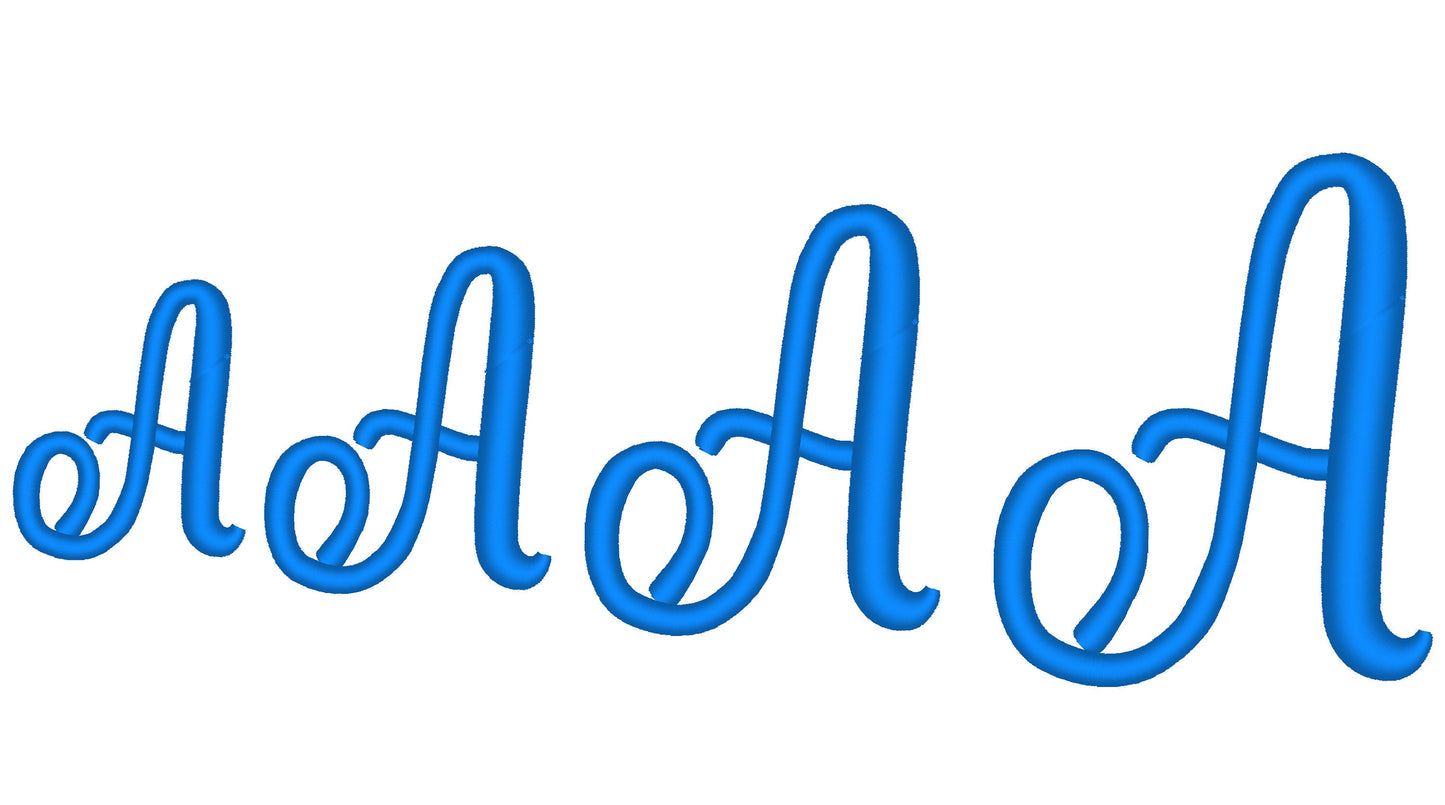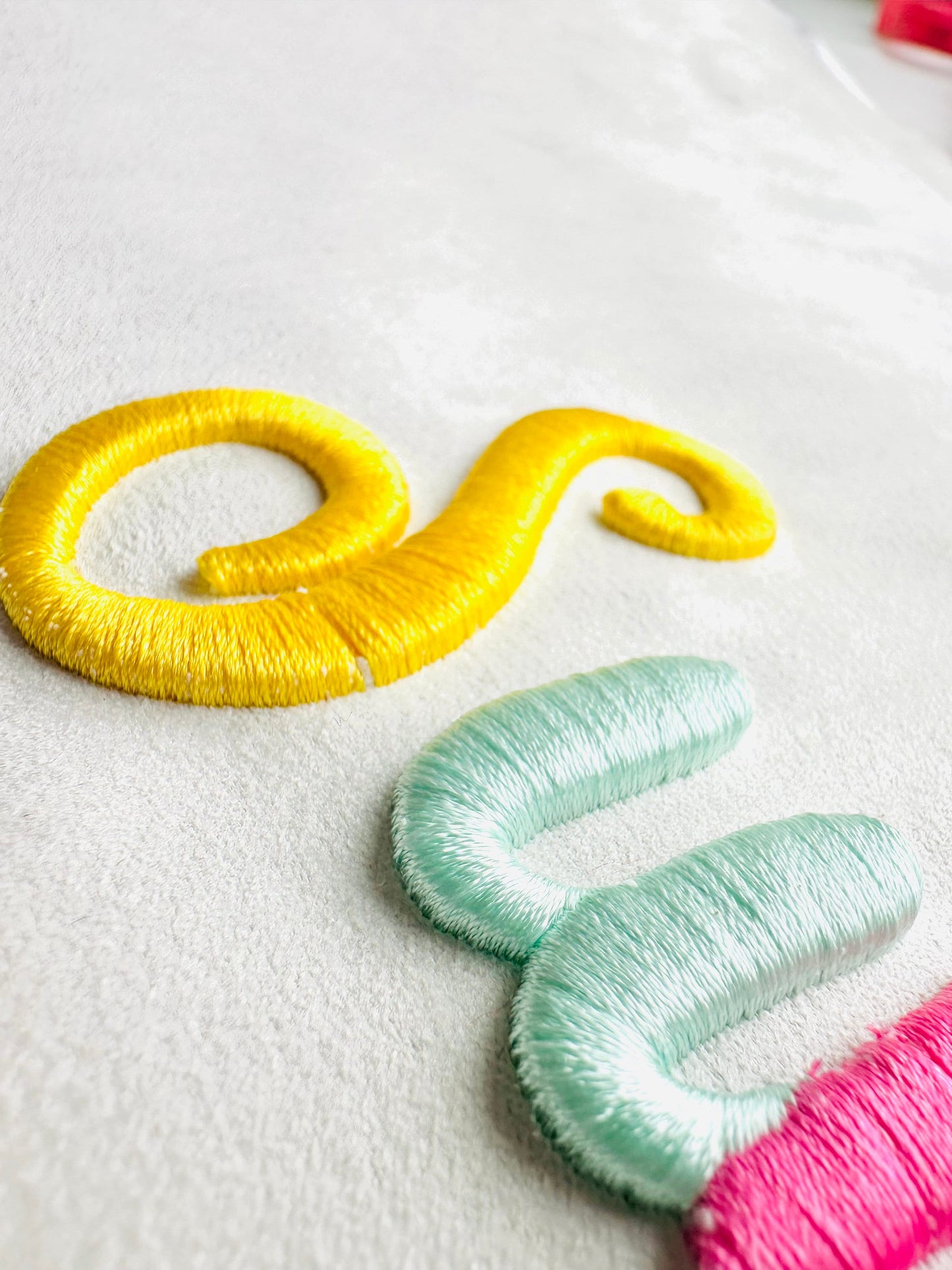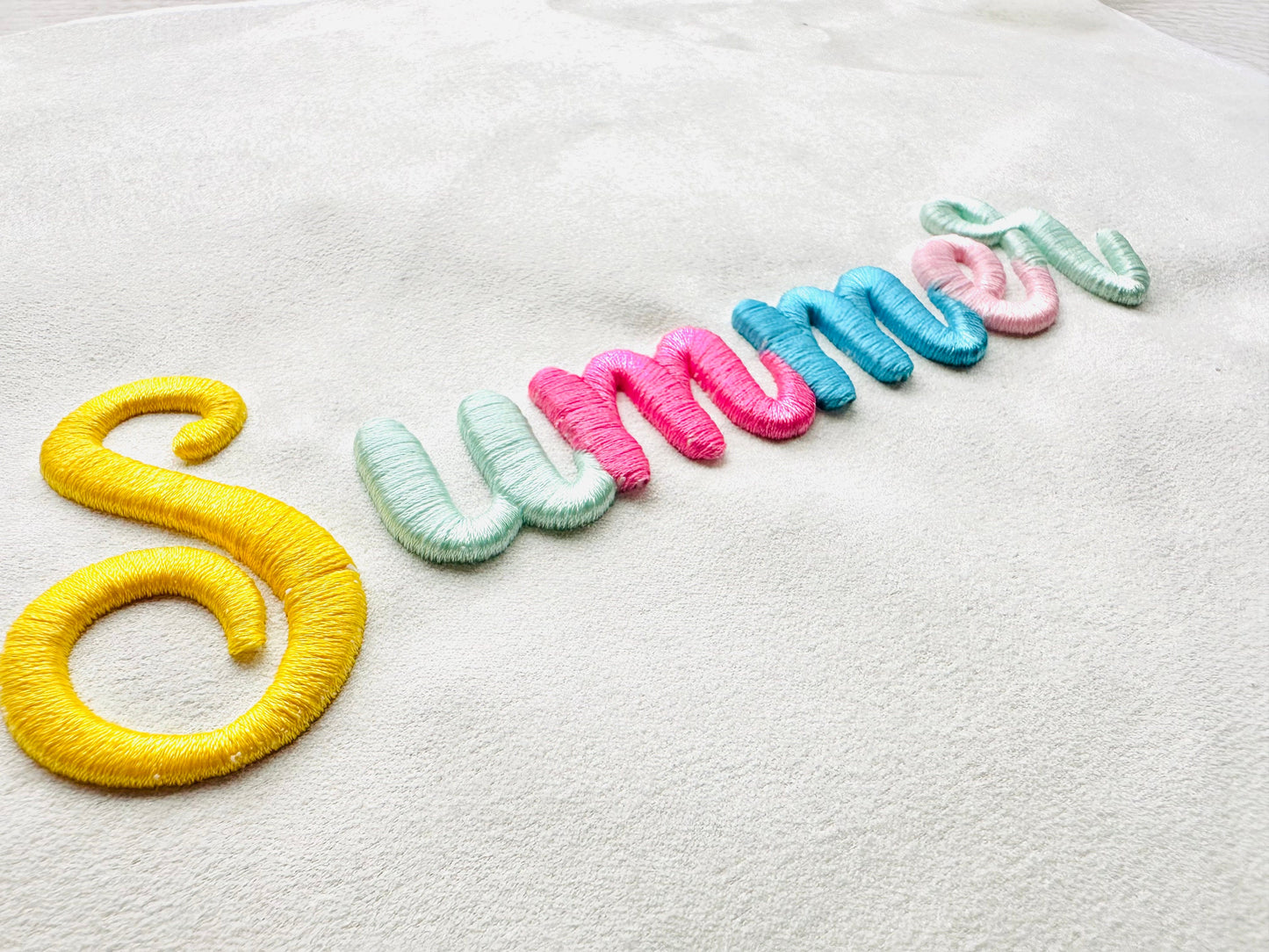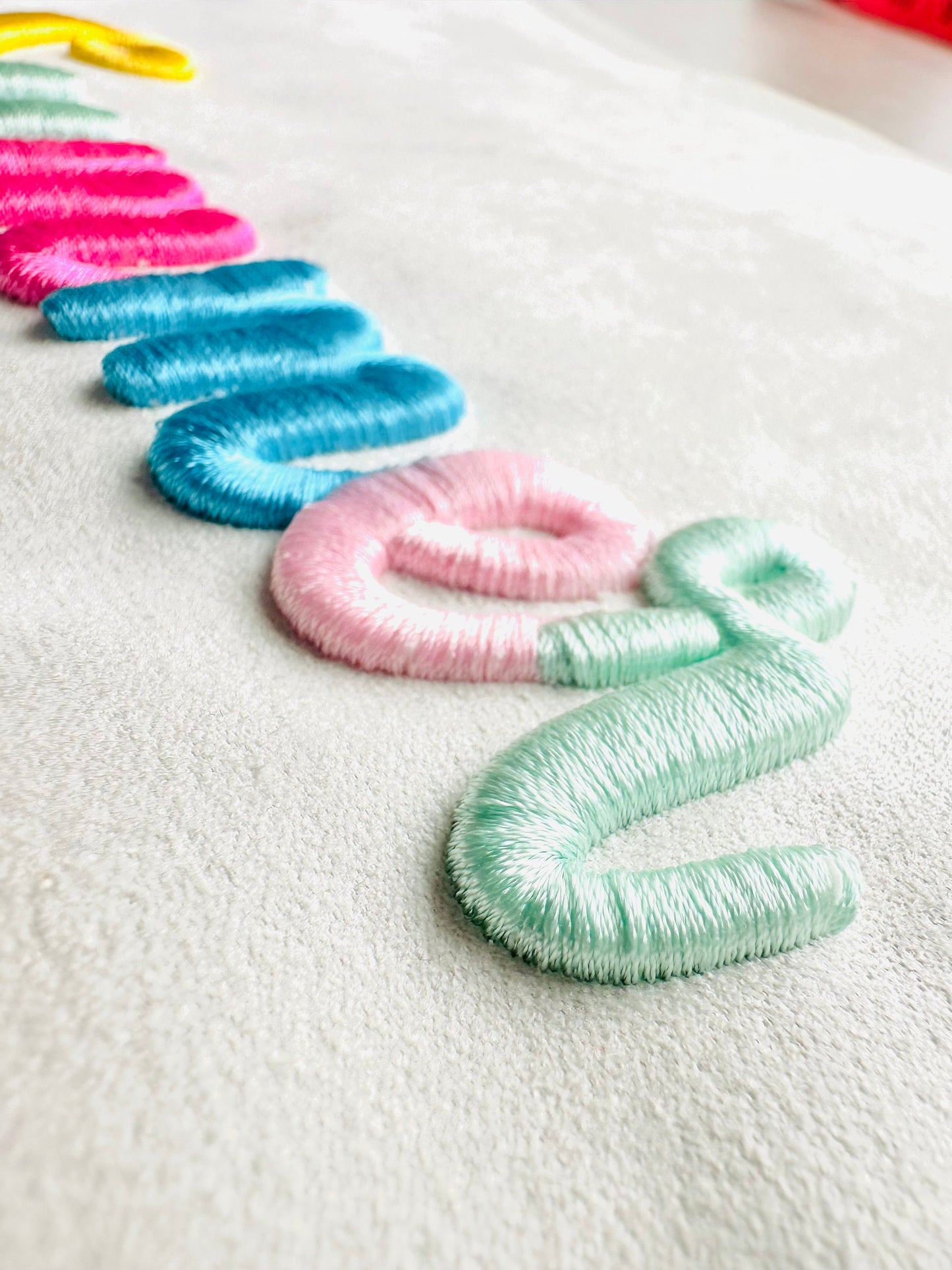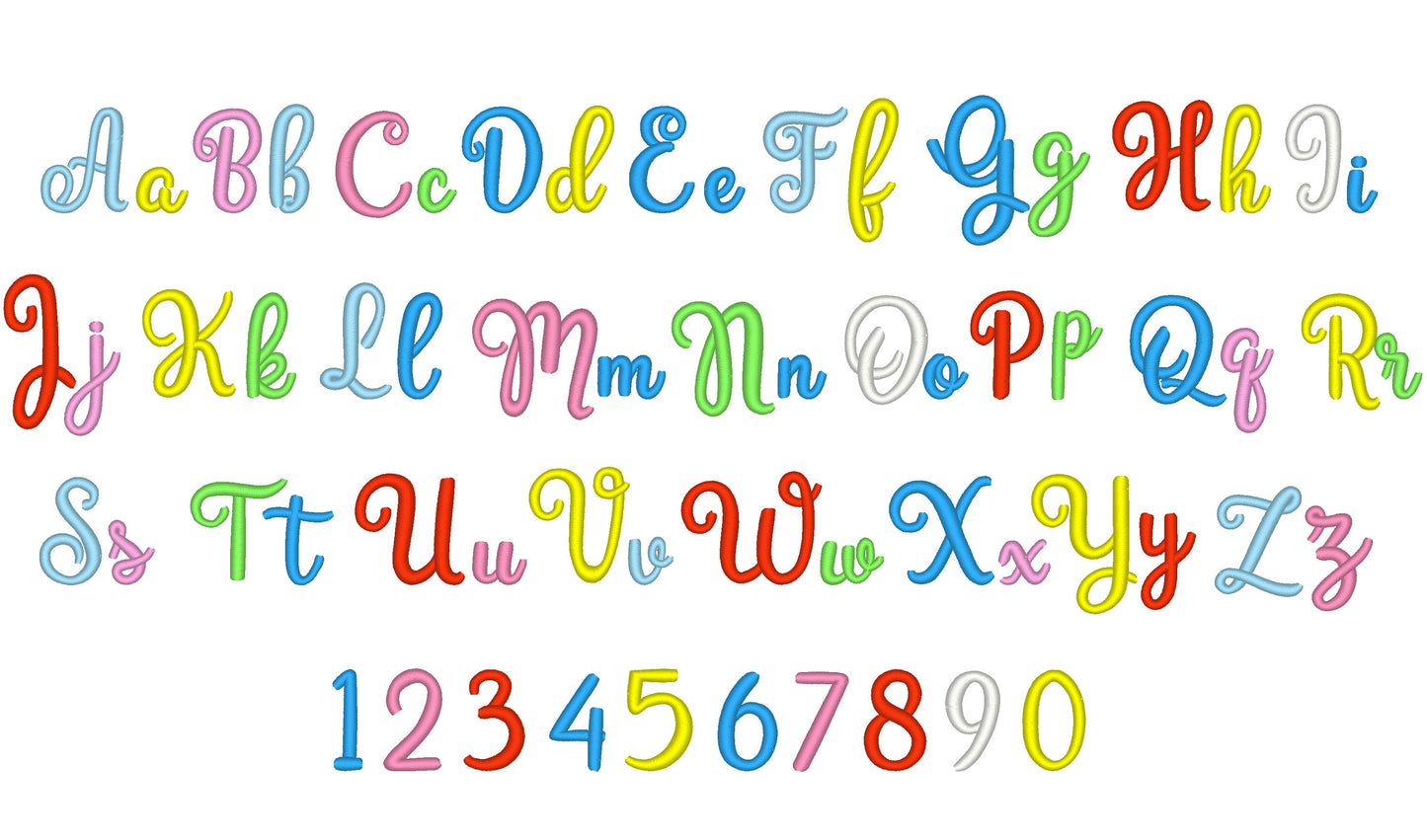
Great design and stitched out lovely.
les policies d'écriture sont de belles qualités jamais dessus . magnifique résultat.merci
Love, Love, Love both puff font and daisies
Tres joli, mais beaucoup moins en relief que sur la photo. J'ai passé deux fois pour avoir plus de volume.
Stitched out great! Love it
This is a beautiful font!
I really stitched out nice!
Amazing puffy font. Love it!
Very nice font, stitched out very well and cut the embroidery foam as needed, with good coverage. It's a shame it doesn't come with a few punctuation items, even just a comma would be helpful if added in the future. I would definitely recommend it though as the font is lovely.
Wunderbare Stickschrift. Danke dafür :)
Looks very nice once stitched.
Love this puff font. Thank you!
Love Puffy Fonts and this one is really cute!
I NEED TO PRACTICE MORE. BUT IT WAS PRETTY AND STITCHED OUT WELL.
This has been one of my most requested things recently. loving the puff embroidery!
Leuk lettertype. Goed ontwerp en eenvoudig in gebruik.
Had to go over design twice to fill empty spots
Letters stitched out how i wanted them to look.
Super cute, stitched out well for me
This font stitches great. I didn't have any issues when making my products. The instructions are well written and ready to follow. The results are fabulous!
The letters stitched out perfectly
stitched out perfectly, I love this!
Looks awesome. Stitches MUCH better than a cheap 3D font I bought.
This is such a cool font. It stitched out very well
Stitched out perfectly. Love this 3 D Font